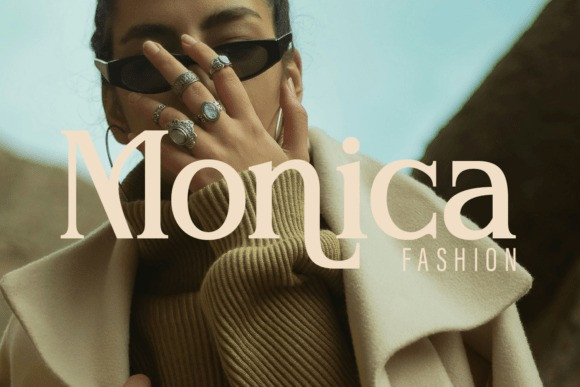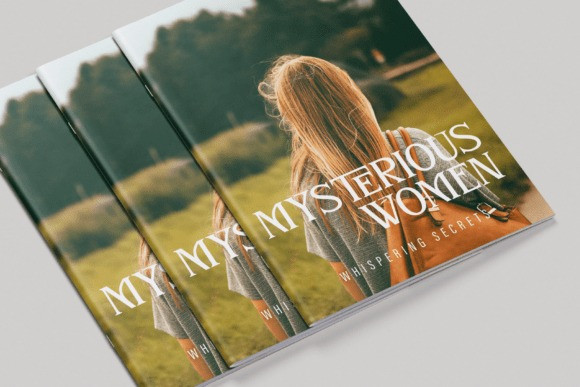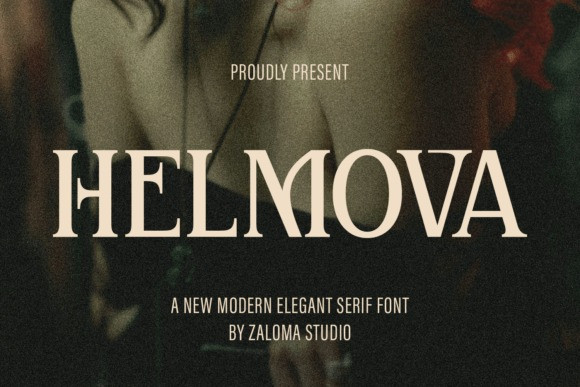
Helmova Font
Helmova Font is a modern elegant serif typeface with a classic soul. Designed by Zaloma Studio, it blends timeless sophistication with artistic flair — perfect for luxury branding, editorial design, book covers, and high-end packaging.
Featuring stylish alternates and unique ligatures, Helmova allows you to create striking typographic compositions with character and charm.